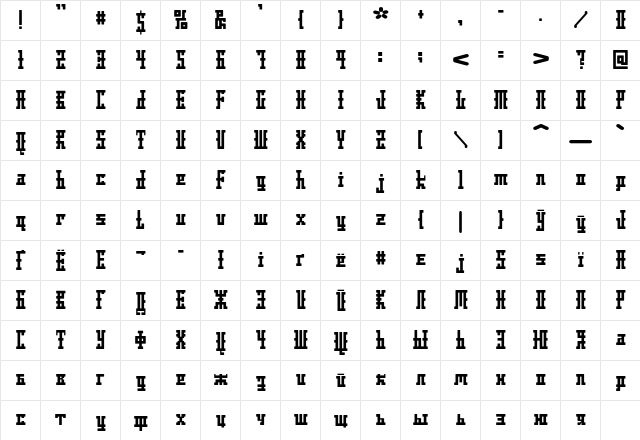
DS AyaksC Regular
Design Context for DS AyaksC Typeface
DS AyaksC is a composed and adaptable typeface that performs quietly and consistently across a wide range of design contexts.